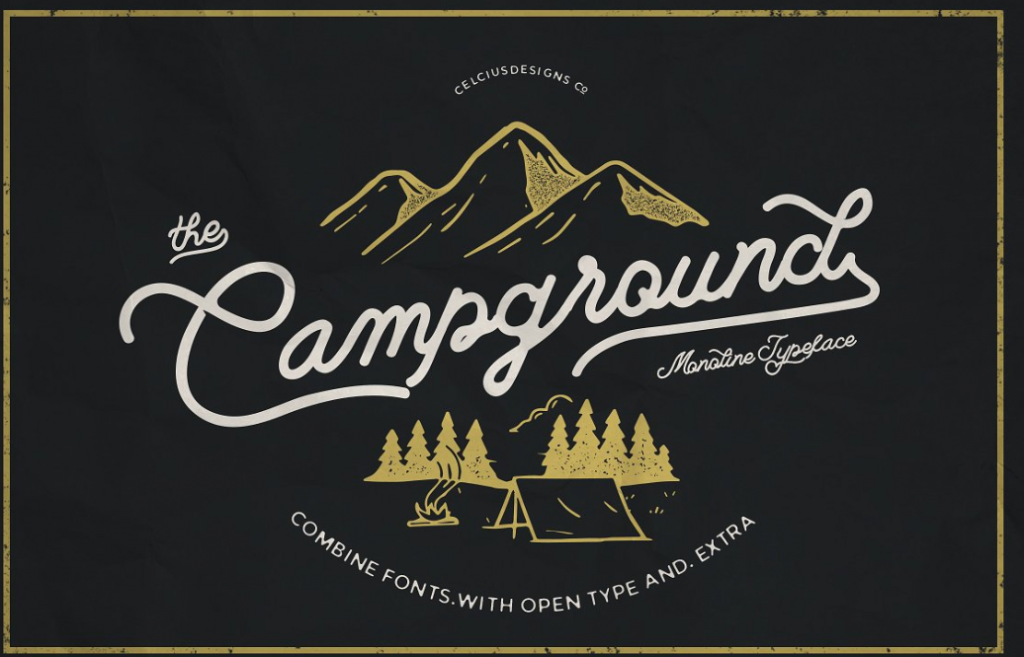
Campground Font
Campground Font is an excellent addition to the collection from exljbris Font Foundry. This font features 10 unique styles, each with its own charm and precision. You can download the camping-themed font for free here.
Campground Font supports up to 114 languages including CE languages and even Esperanto. It also has great typeface that looks like halogen flare that creates beautiful designs.